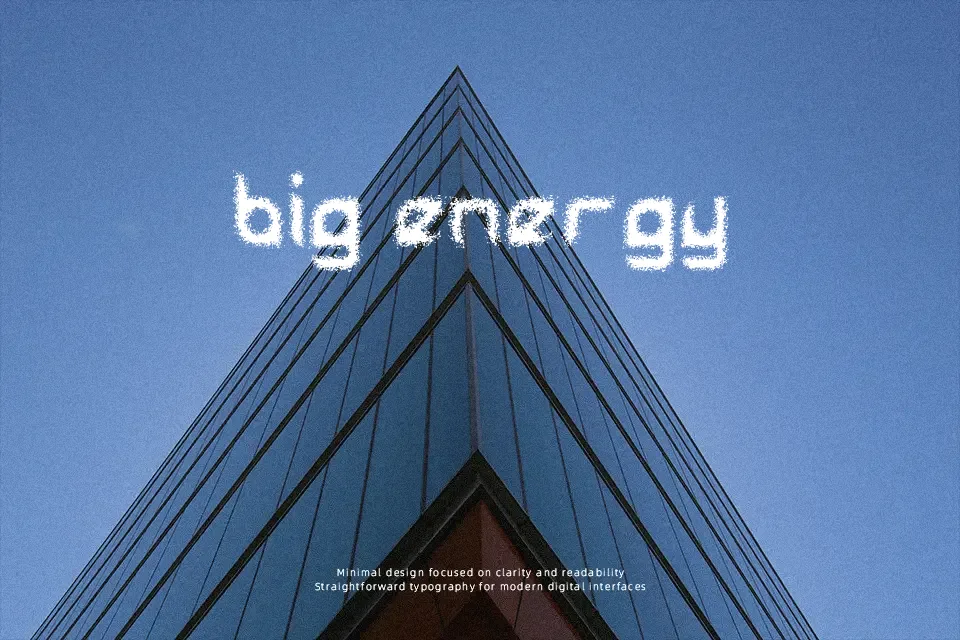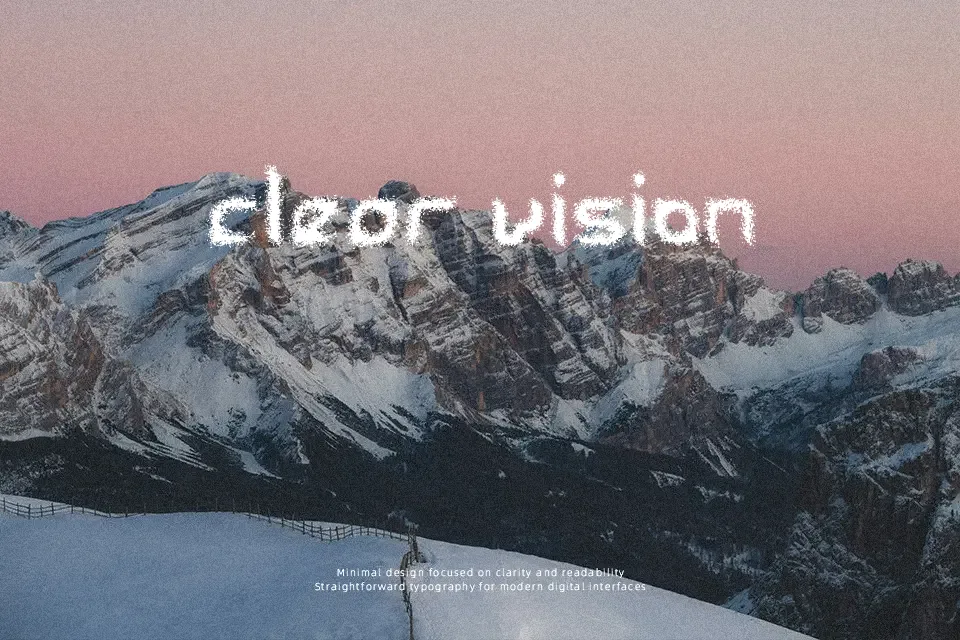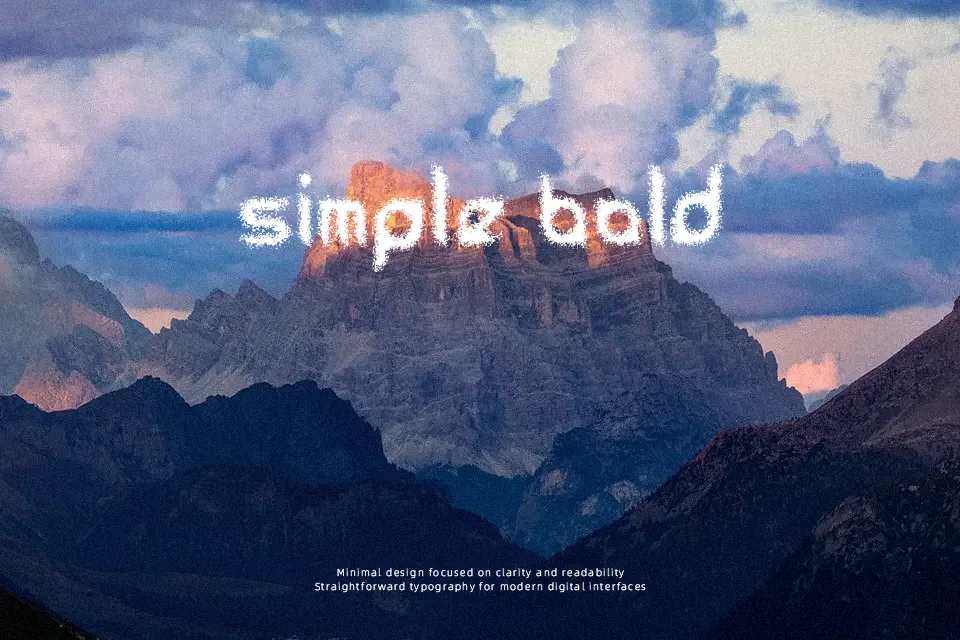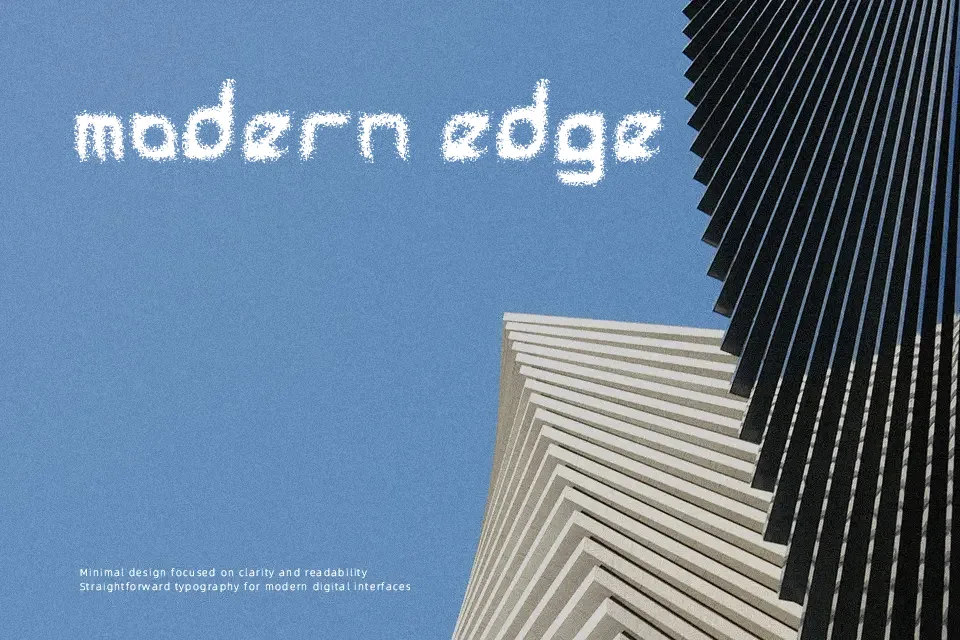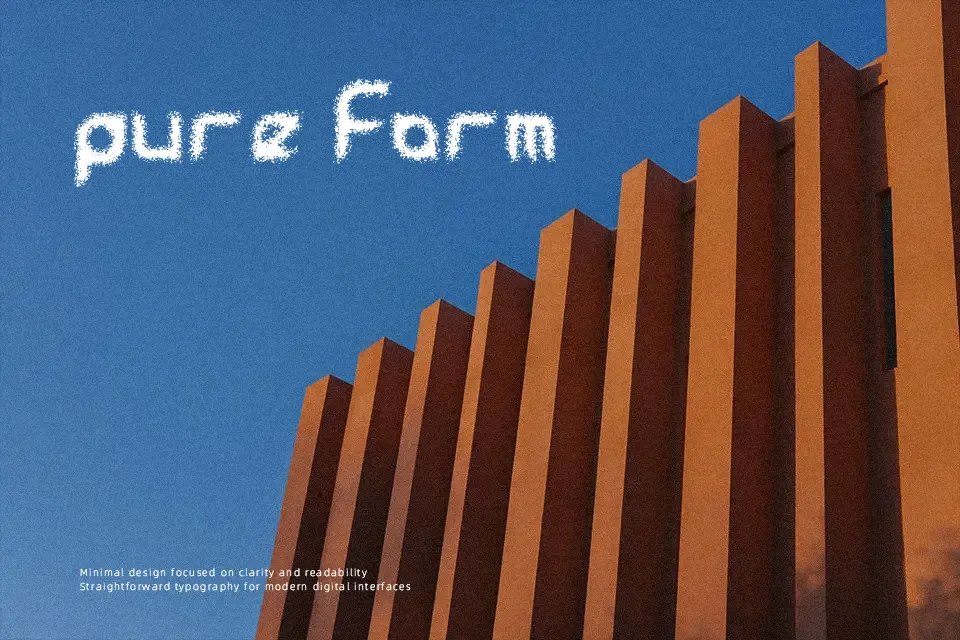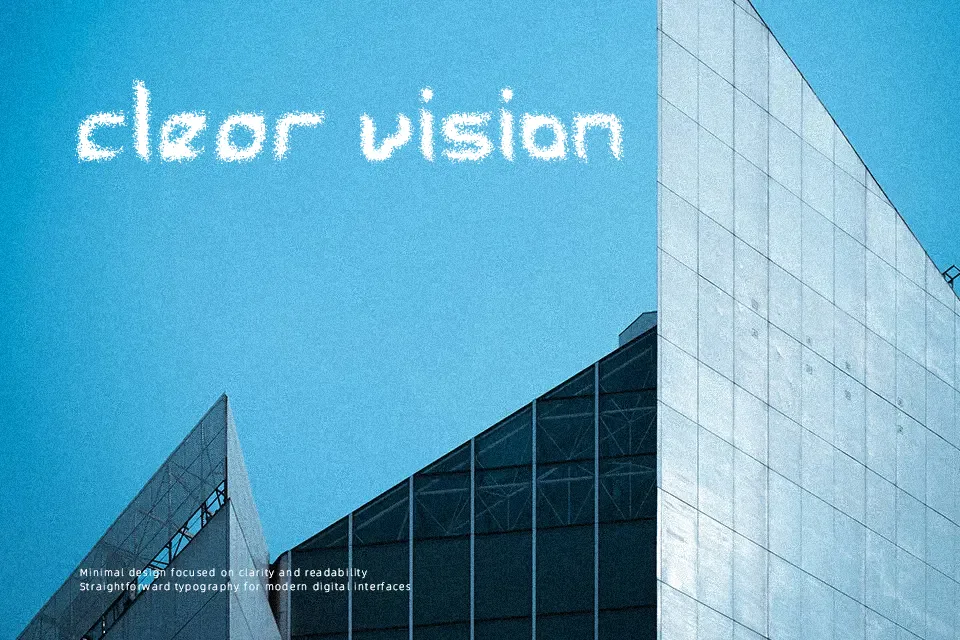
Accessories Urban Font
Designed by Fonts Bomb
Accessories Urban leans into its groovy, retro-inflected character — the letterforms carry thick, expressive strokes with an organic looseness that reads as playful yet street-influenced. The spacing feels deliberately casual, reinforcing its urban mood rather than polishing it away. For headline use on music posters, event flyers, or streetwear packaging, it holds its own. Where it falls short is predictable: small sizes punish legibility, and the character set is limited to 67 glyphs, which rules it out for multilingual or symbol-heavy layouts. A designer needing structured hierarchy will find it too irregular, but for single-line display treatment in genre-specific contexts, it delivers without overpromising.
Best For:- Music event posters and concert flyers
– Streetwear brand headline text
– Retro-themed packaging labels
– Album cover title treatments
Not Ideal For:- Long-form body text or paragraph reading
– Corporate identity or formal business documents
– Multilingual layouts requiring extended character support
– Small-size UI labels or mobile interfaces
Perfect for branding, fashion, and logo, with a bold and decorative style.